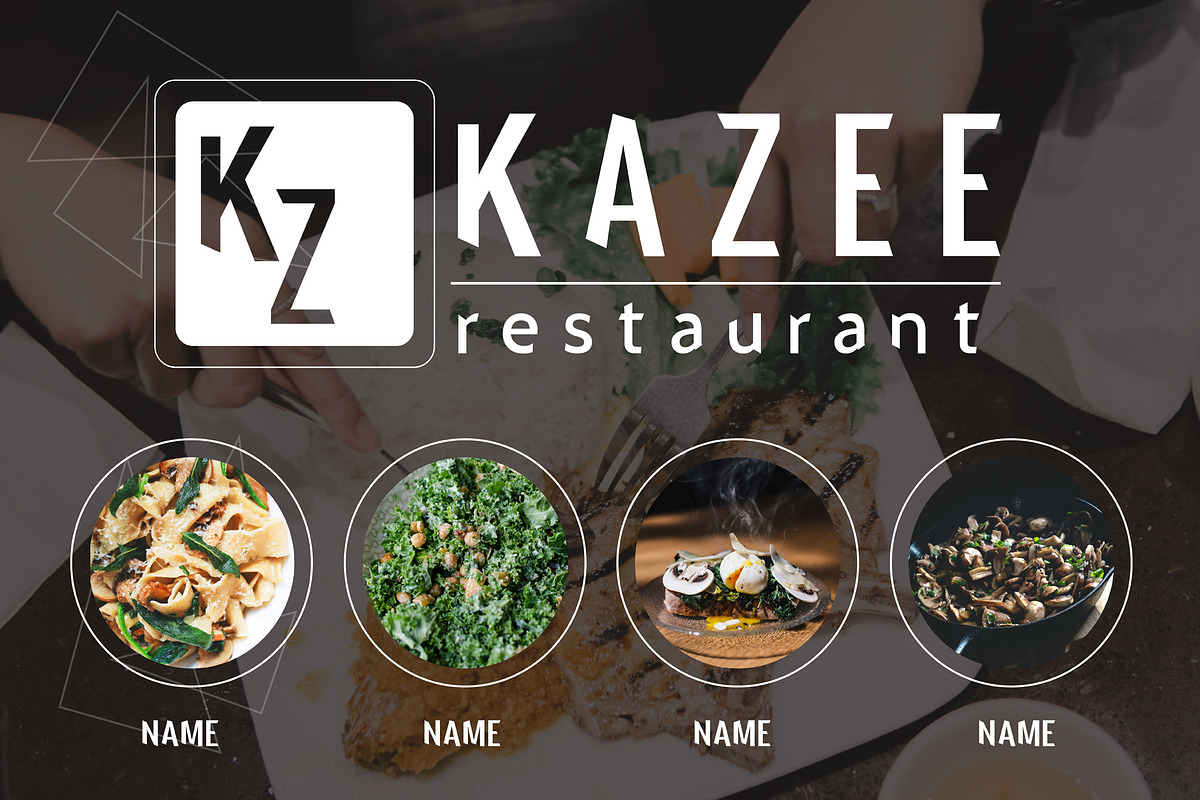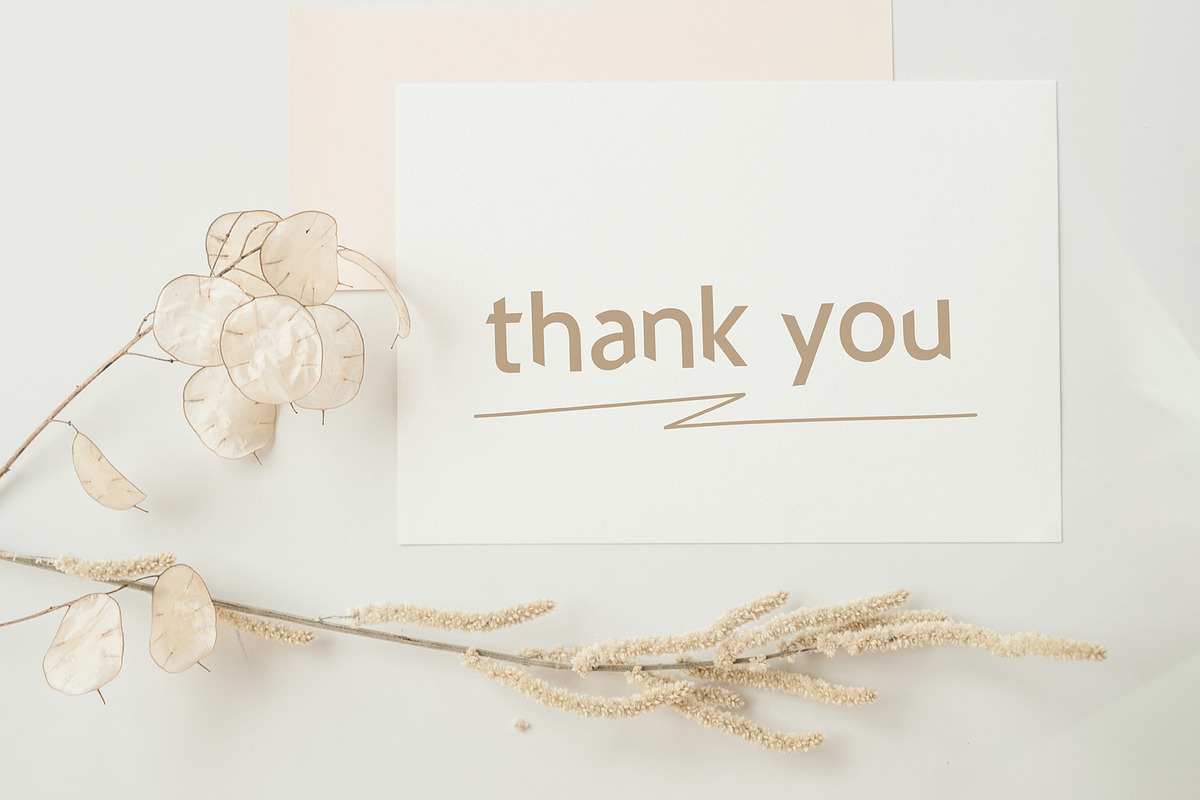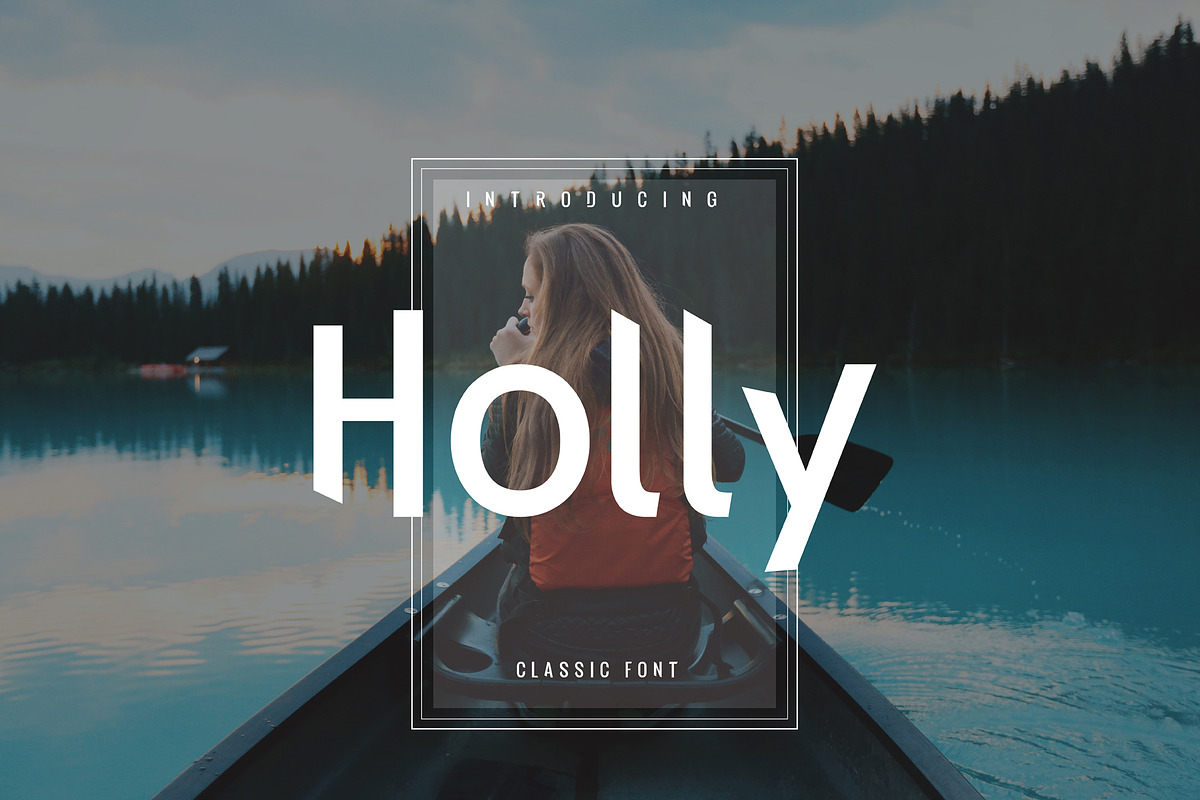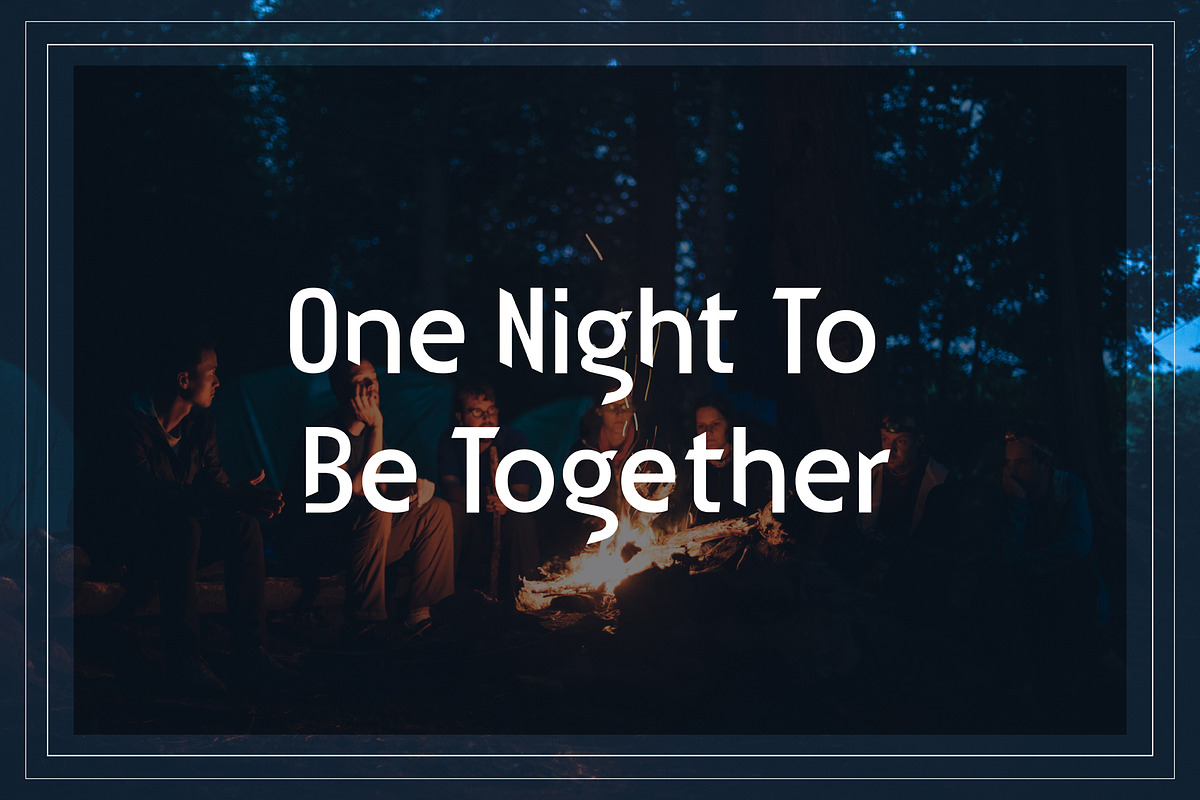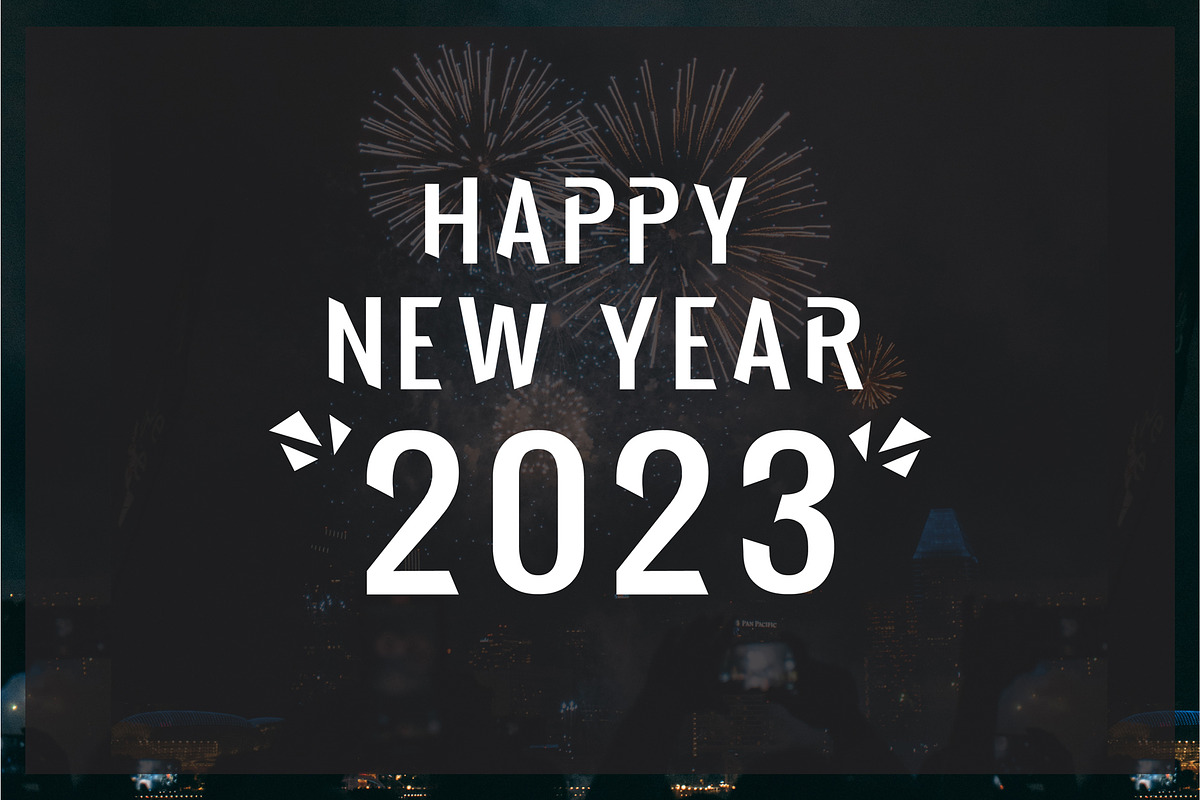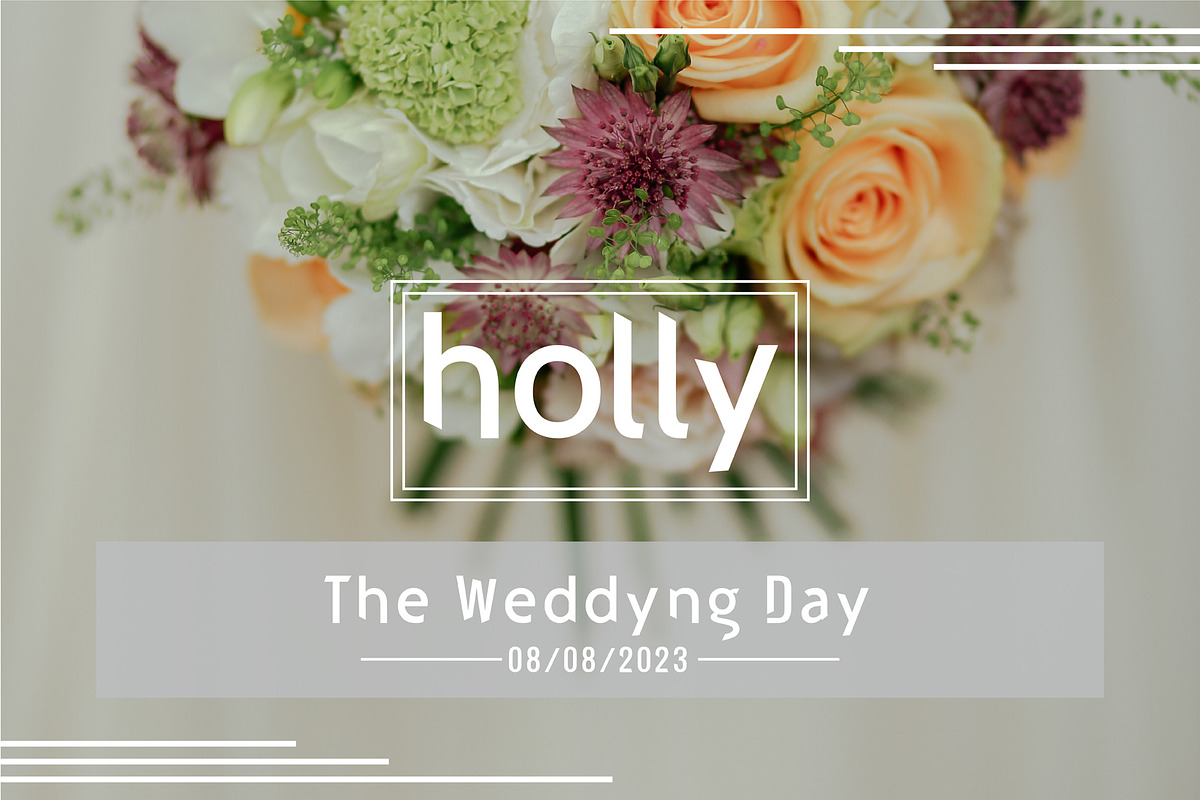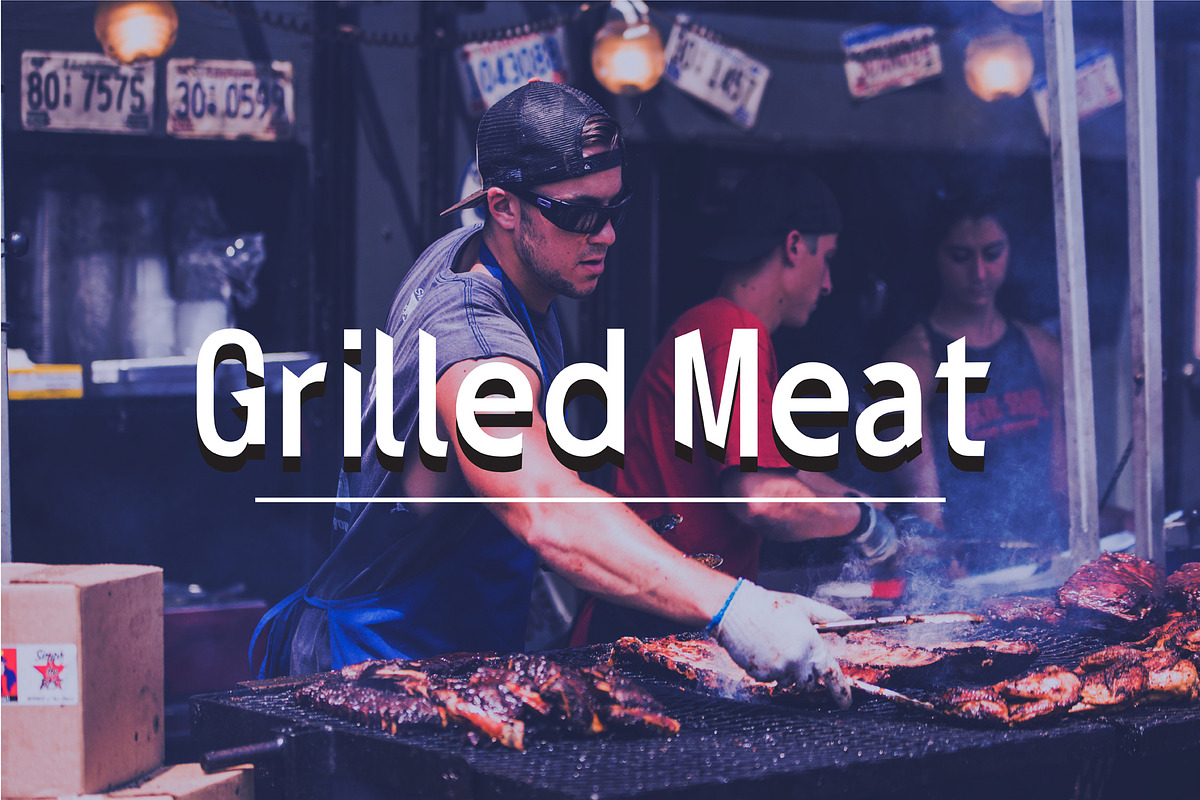
Holly
Holly is a bold, eye-catching typeface that comes in a sans-serif look with great contrast. provide readability. Holly is a great choice of large sizes for use on headlines, posters, billboards, magazines, advertisements, etc.